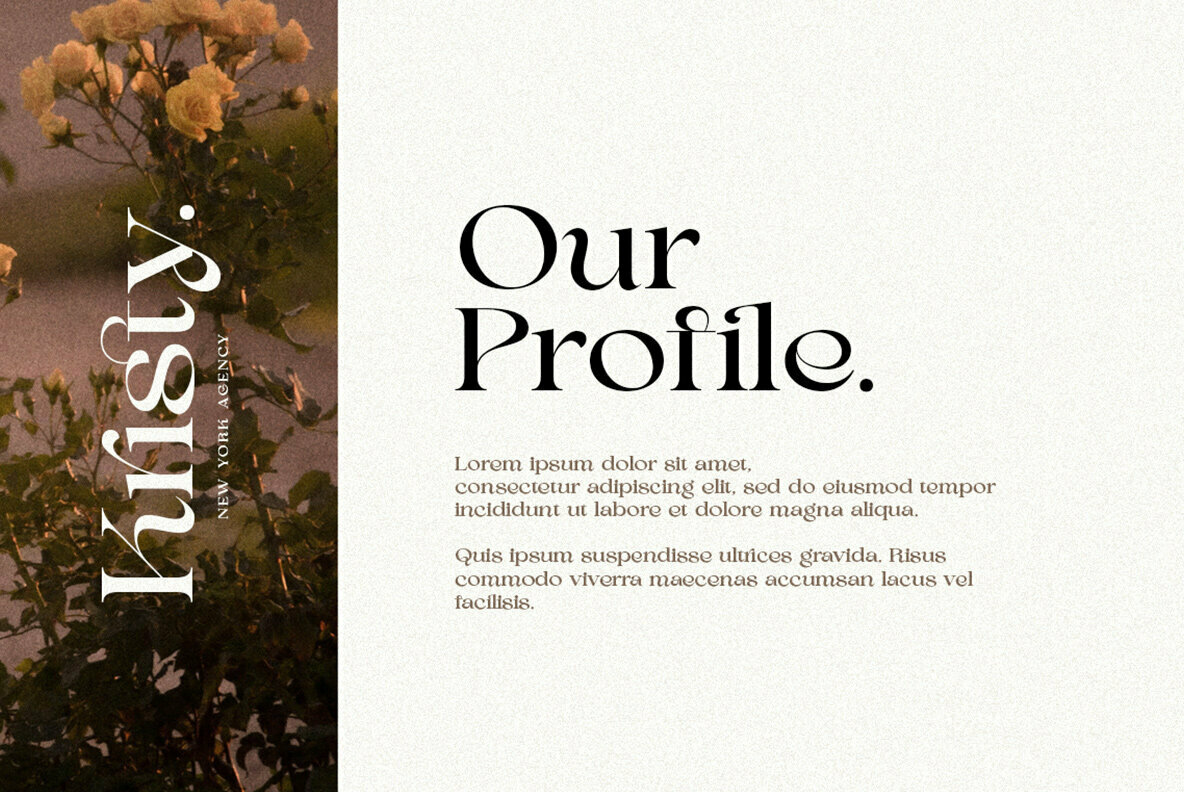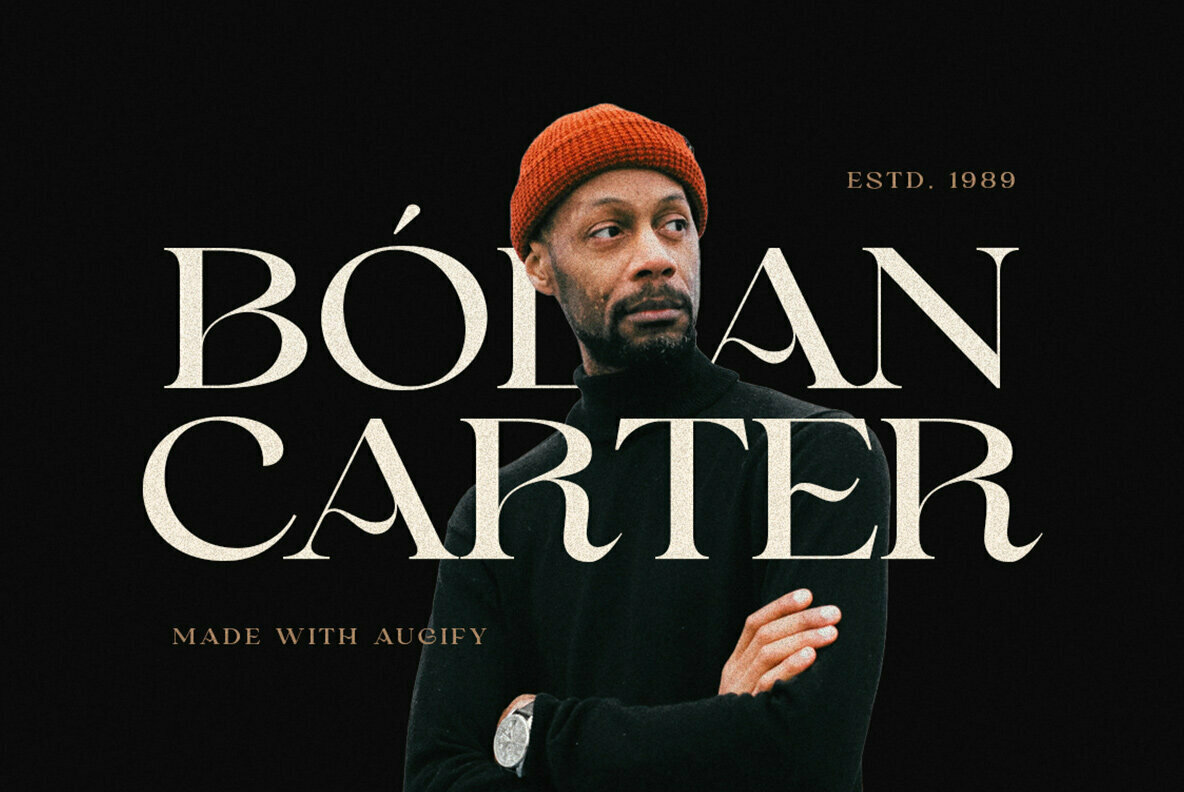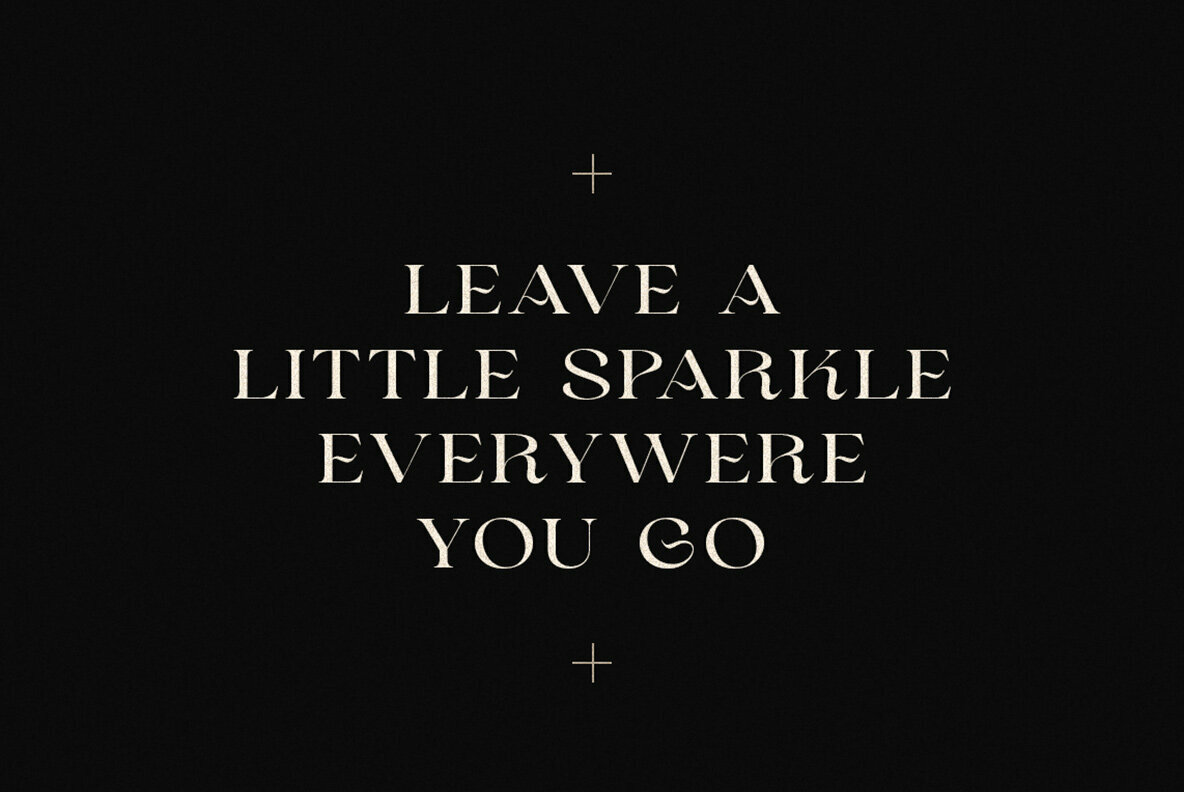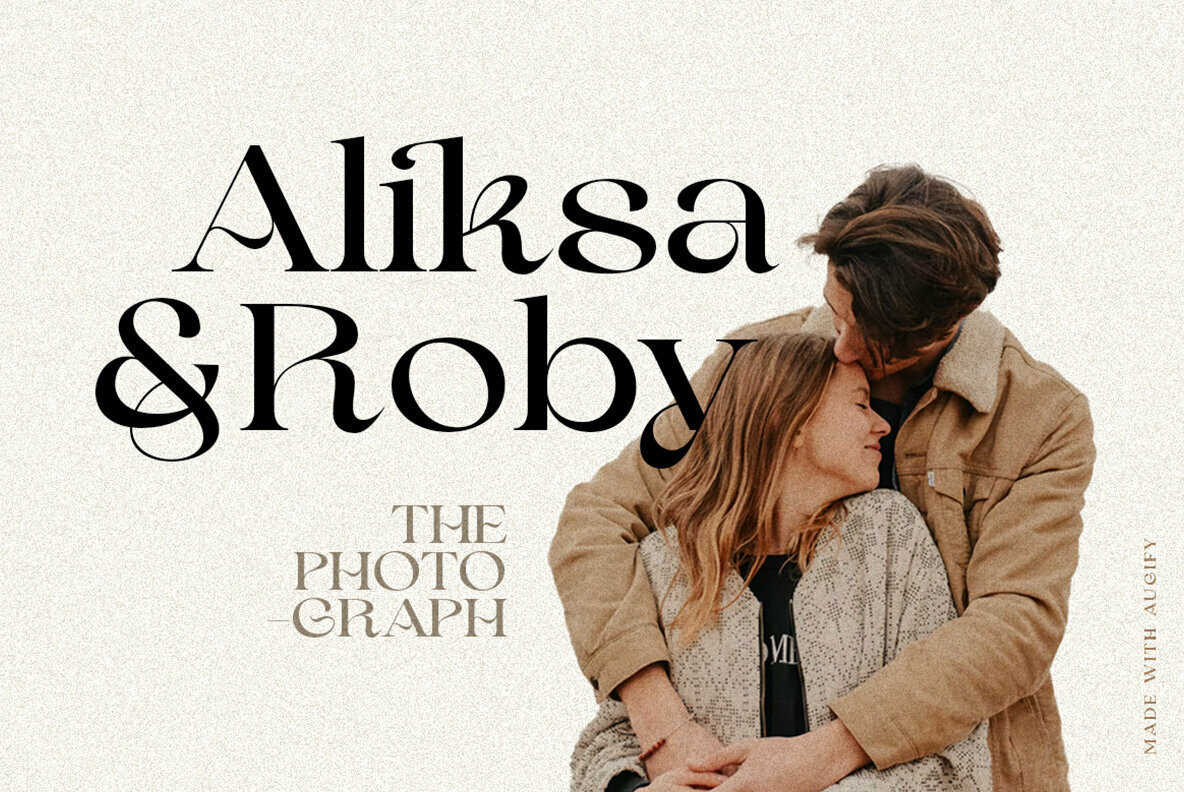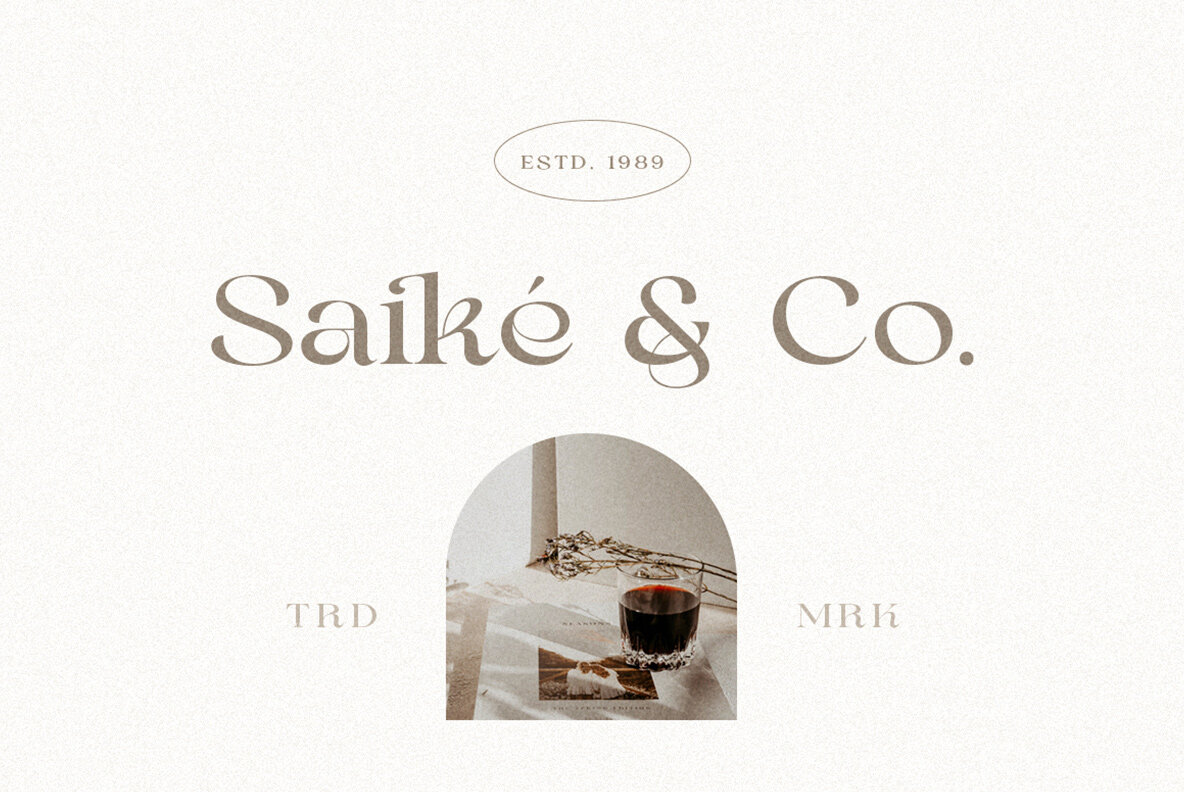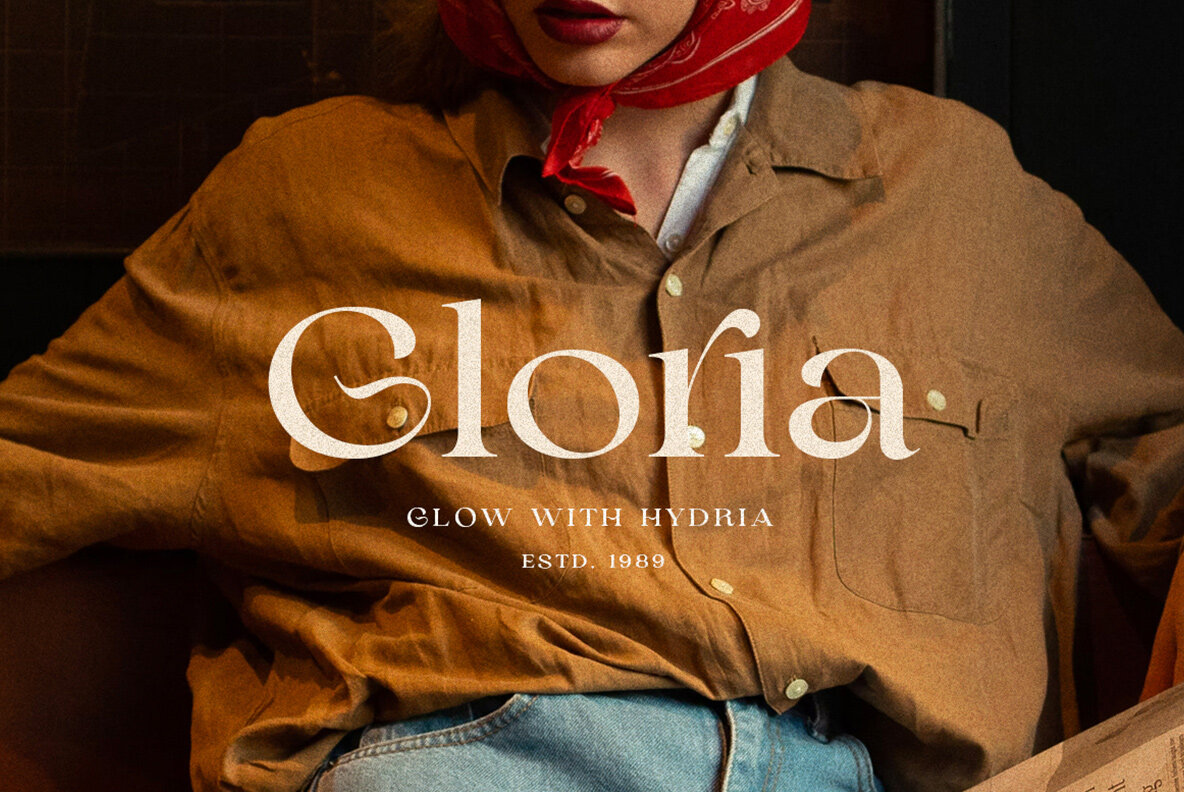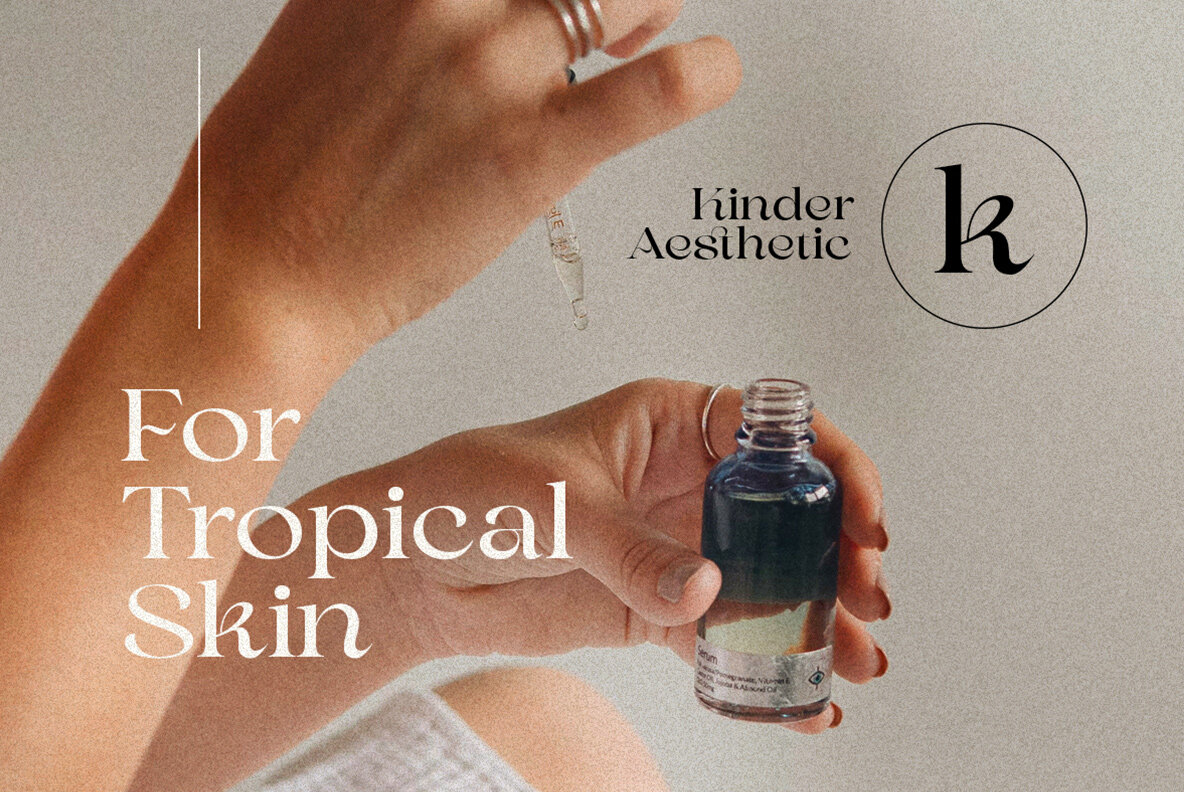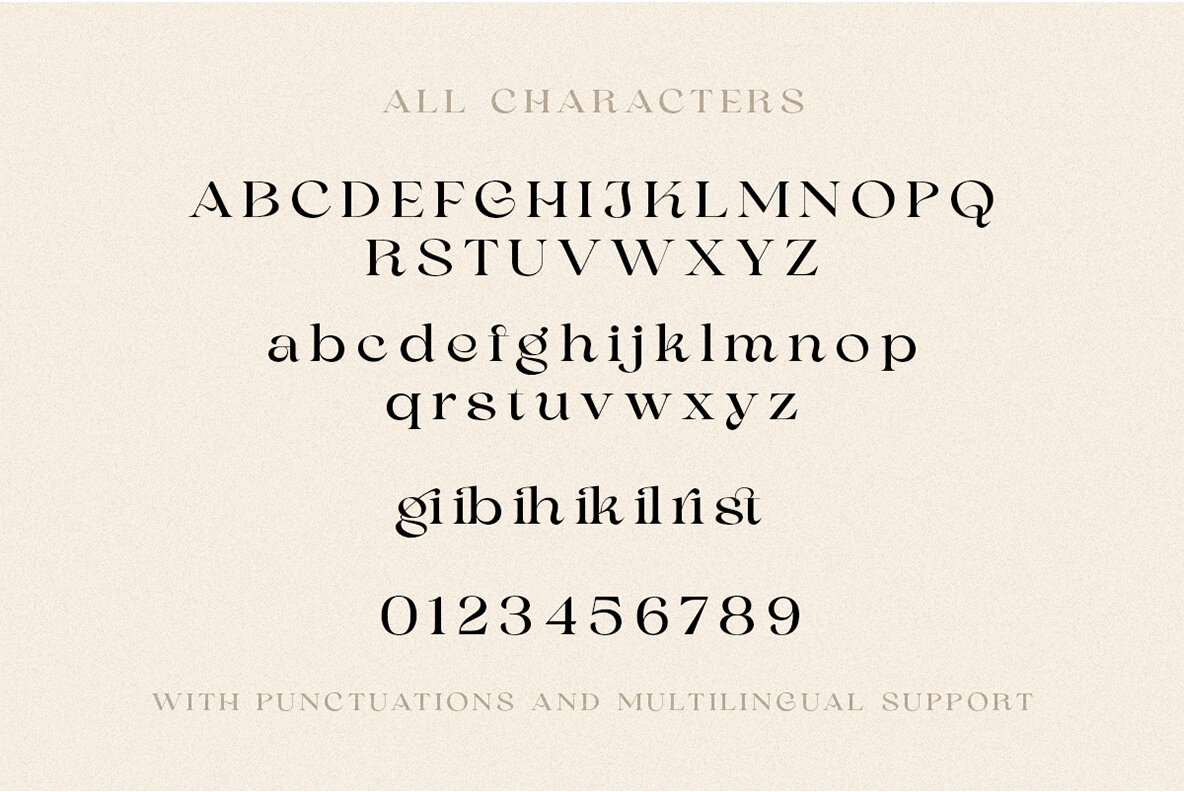
Augify Font
Augify Regular
Augify Display s a sophisticated serif with unique letterform. It has many beautiful ligatures which you can play around to match your project, whether for a standout headline, or for a tagline, you name it. The unique letterform makes this font one of a kind! Perfectly to be applied to the other various formal forms such as invitations, labels, logos, magazines, books, greeting / wedding cards, packaging, fashion, make up, stationery, novels, labels or any type of advertising purpose.
- Uppercase & lowercase
- Numbers and punctuation
- Alternates & ligatures